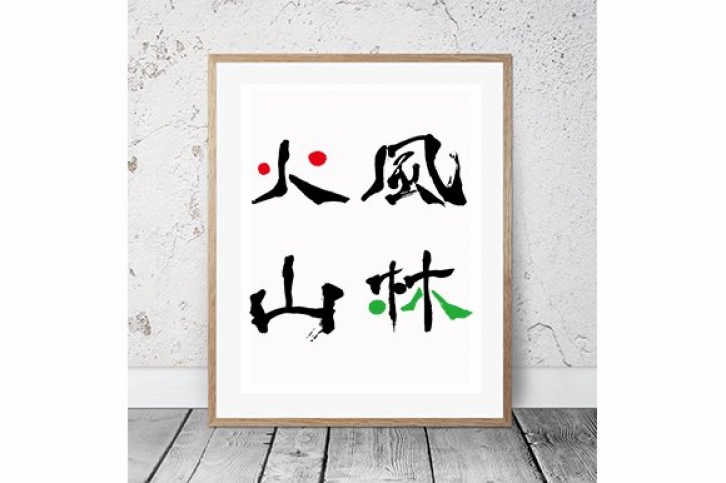
Japanese Calligraphy "Furin-Kazan: Wind, Forest, Fire, Mountain.
~Swift as the wind, Silent as a forest, Fierce as a fire, Immovable as a mountain~"
Handwritten, digitized calligraphy.